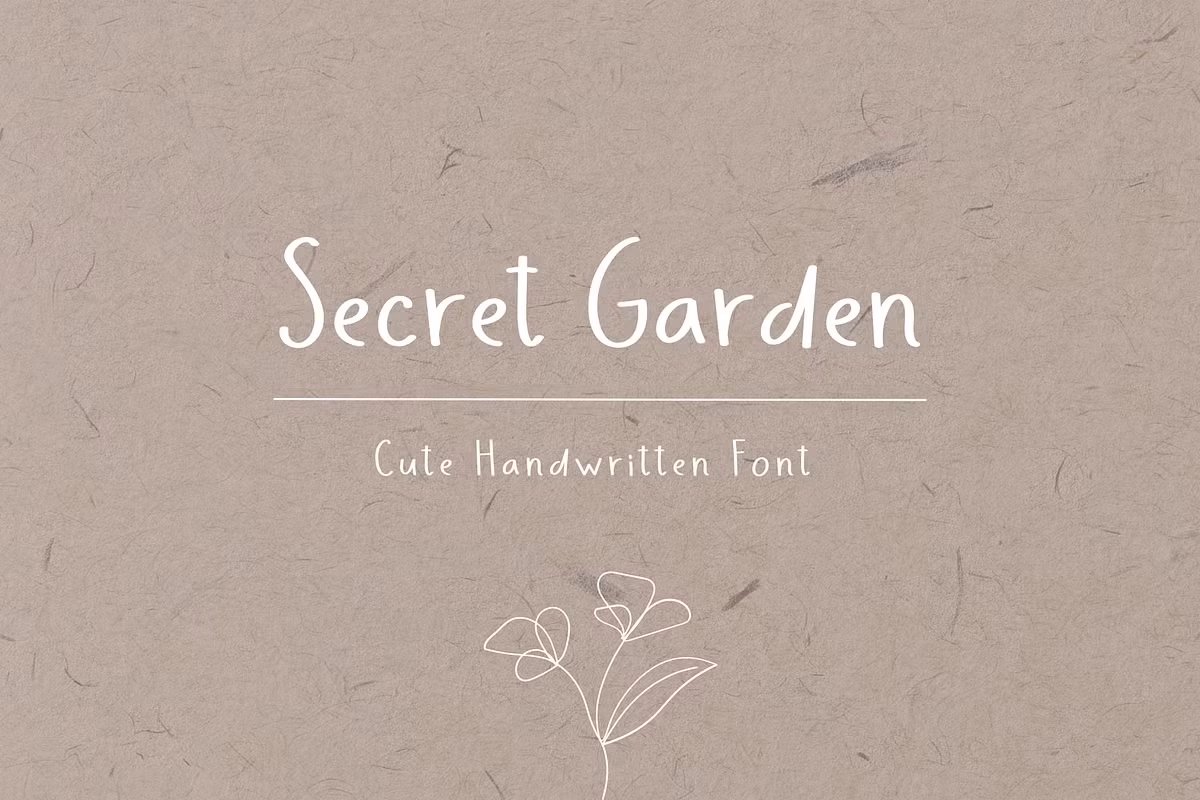
Secret Garden Font Free Download is a whimsical and elegant script typeface that evokes the charm of handwritten letters hidden among wildflowers. With its flowing curves, delicate strokes, and storybook style, this font is perfect for wedding invitations, garden-themed branding, event signage, and romantic packaging.
Its natural rhythm and enchanting flair bring a fairytale touch to any project. Whether you're designing floral logos, nature-inspired quotes, or cozy lifestyle graphics, Secret Garden adds poetic softness and personal warmth.
Designers love Secret Garden for its graceful personality and timeless feel across both print and digital platforms. Ready to bloom in your next design? Download Secret Garden Font Free Download and let your typography grow with elegance and imagination.